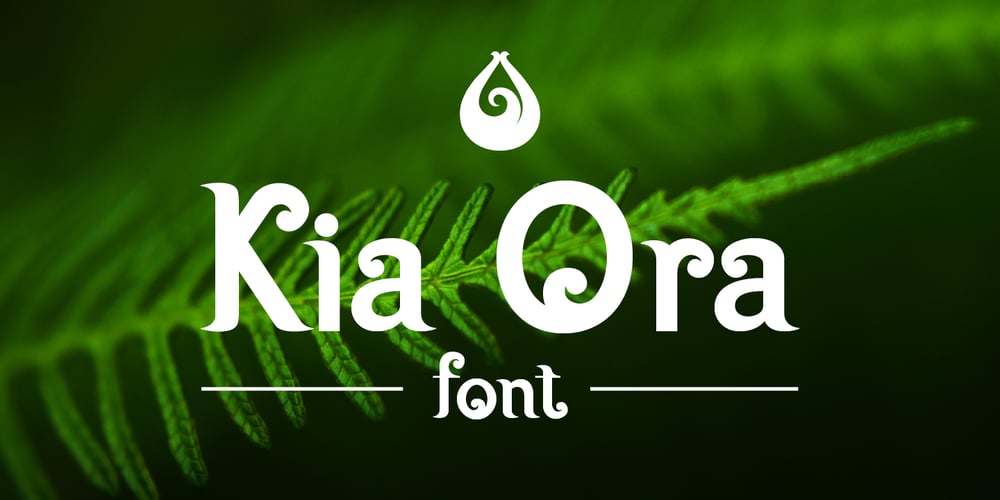
Kia Ora Font Family was designed by Paul Cracknell and published by Something and Nothing. Kia Ora contains 10 styles and family package options. Introducing Kia Ora Font Family: a vibrant typographic embodiment of cultural richness and dynamism. Inspired by the essence of the Maori greeting “Kia ora” and the symbolism of the koru, this font encapsulates the spirit of new beginnings, growth, and harmony.From Light to Black styles, each iteration of Kia Ora Font radiates its own personality, offering a spectrum of possibilities for your design projects. The inclusion of italic variants further enhances its versatility, allowing for expressive and nuanced typography.But Kia Ora Font doesn’t stop there; it goes beyond conventional smoothness to embrace authenticity with its rough and distressed look options. These variations add depth and character, infusing your designs with a unique touch of rugged elegance.Whether you’re crafting branding materials, editorial layouts, or digital content, Kia Ora Font empowers you to greet the world with style and warmth, embodying the spirit of innovation, growth, and gratitude inherent in its Maori origins.